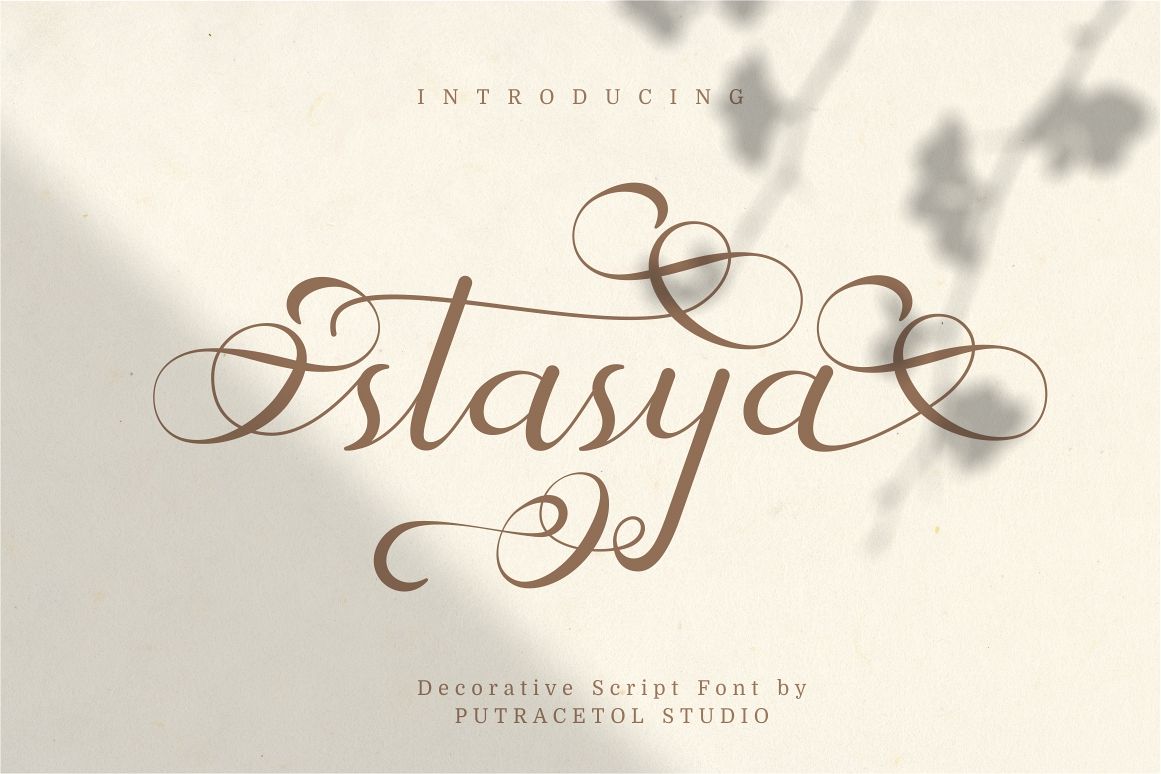
Stasya is a decorative script font with awesome swirl. This font is feminime, elegant, messy and modern.
Stasya perfect for branding, wedding invite and card, elegant logo, poster, packaging, stationery, website, and many more.
Come with open type feature with a lot of alternates, its help you to make great lettering.
This font is also support multi language.